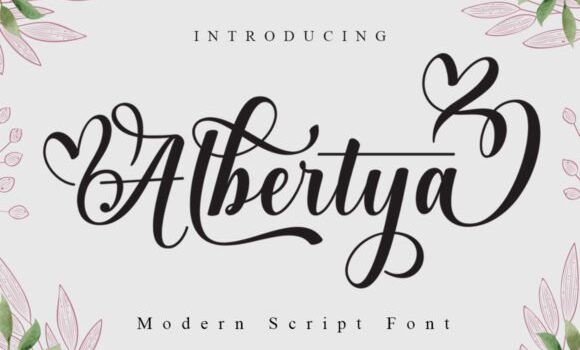
Albertya Font – Free Download Introduction to Albertya Font Albertya is a distinct and flowing script font created for packaging products, invitation cards, flyers, mockups, event posters, and anything else that requires high-quality vibes. 📸 Preview Gallery 6 images 📌